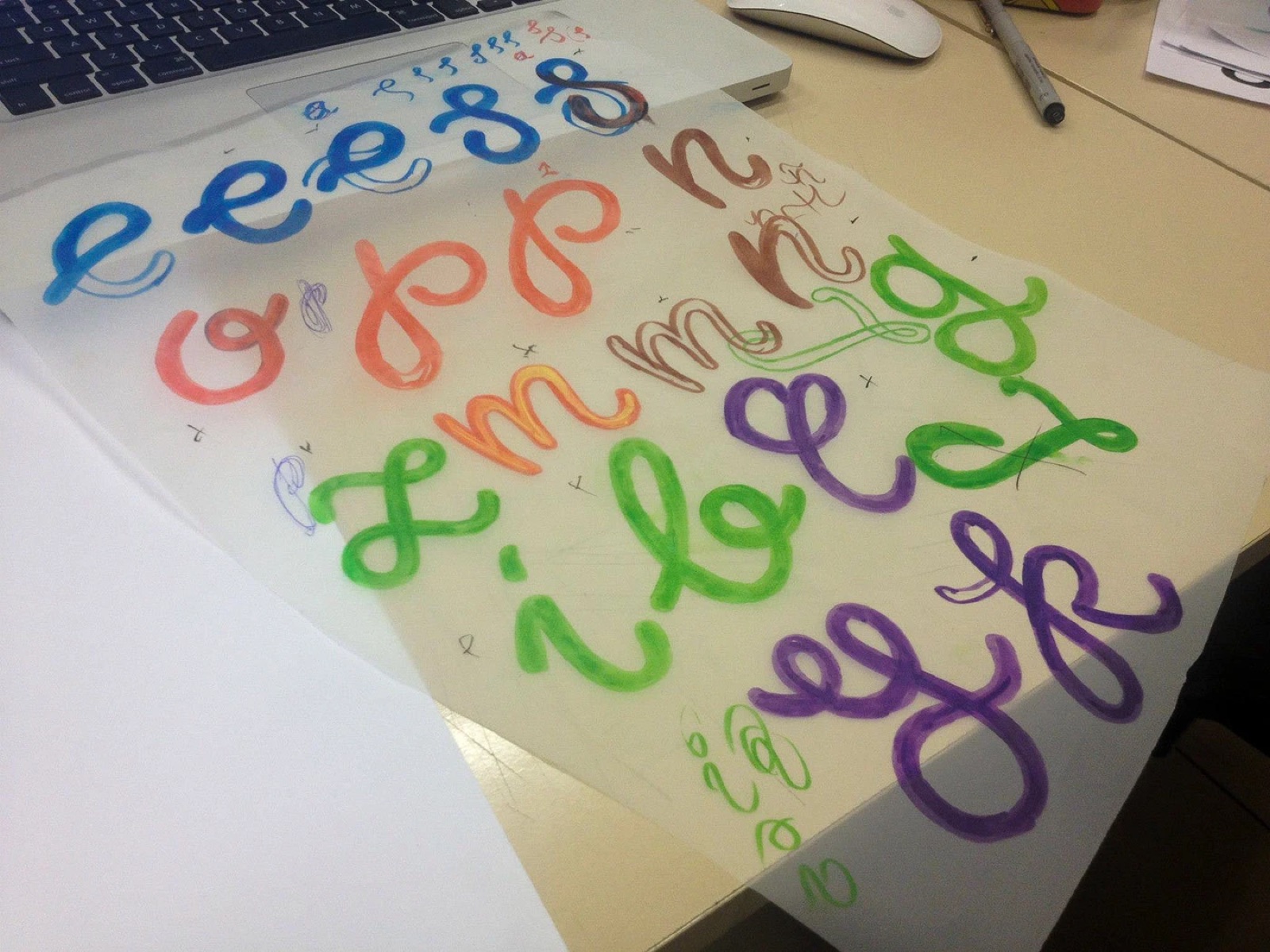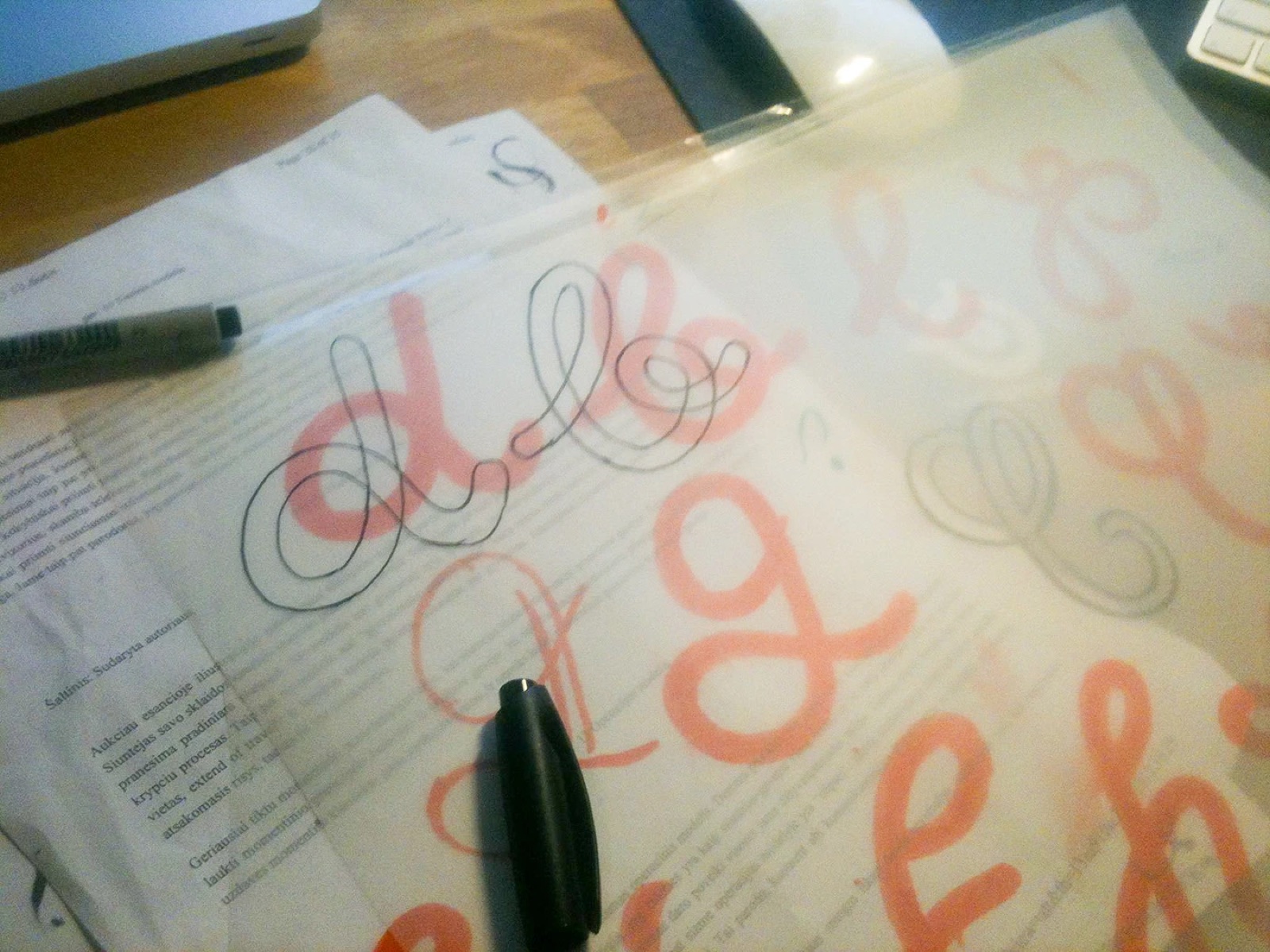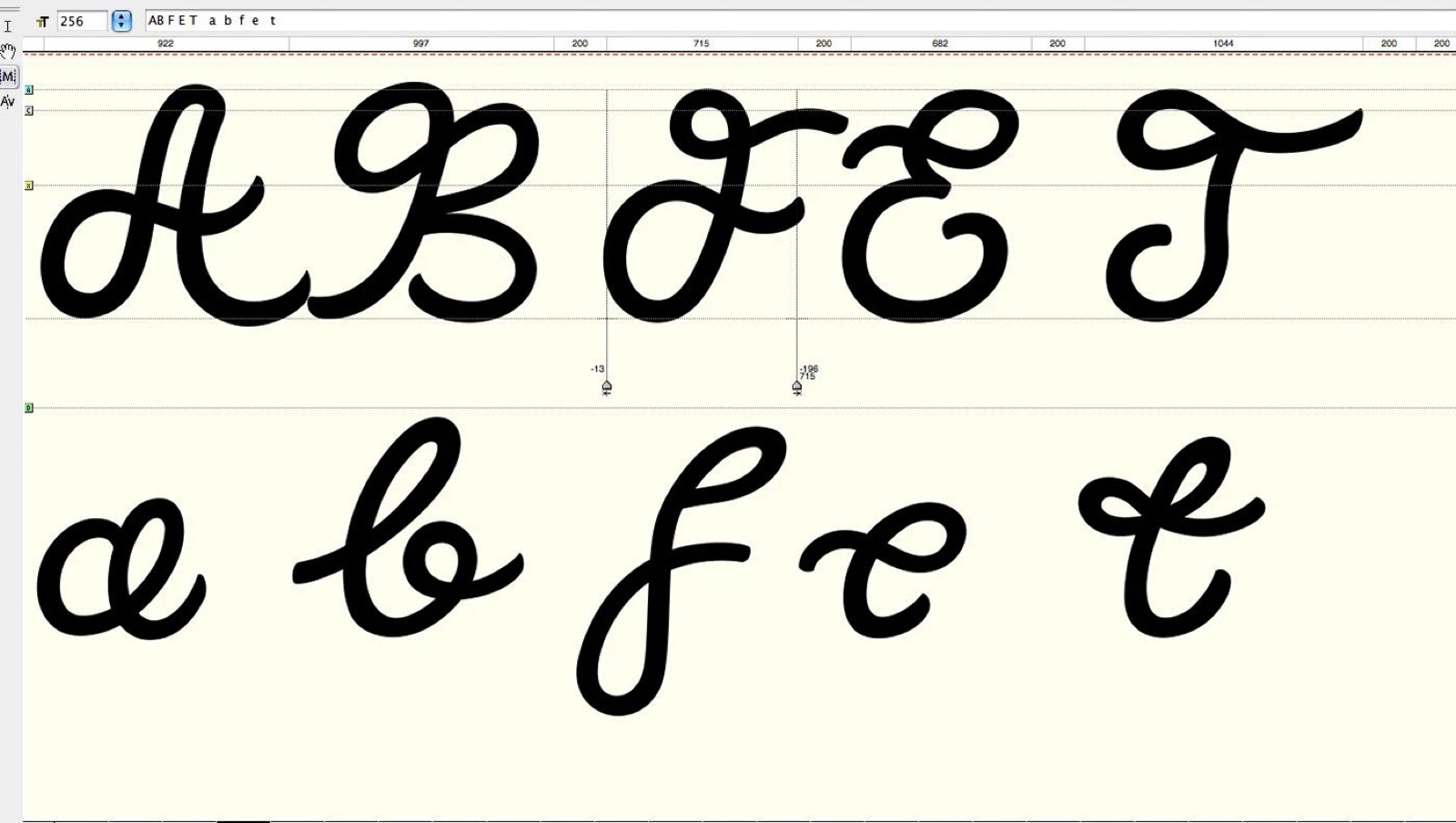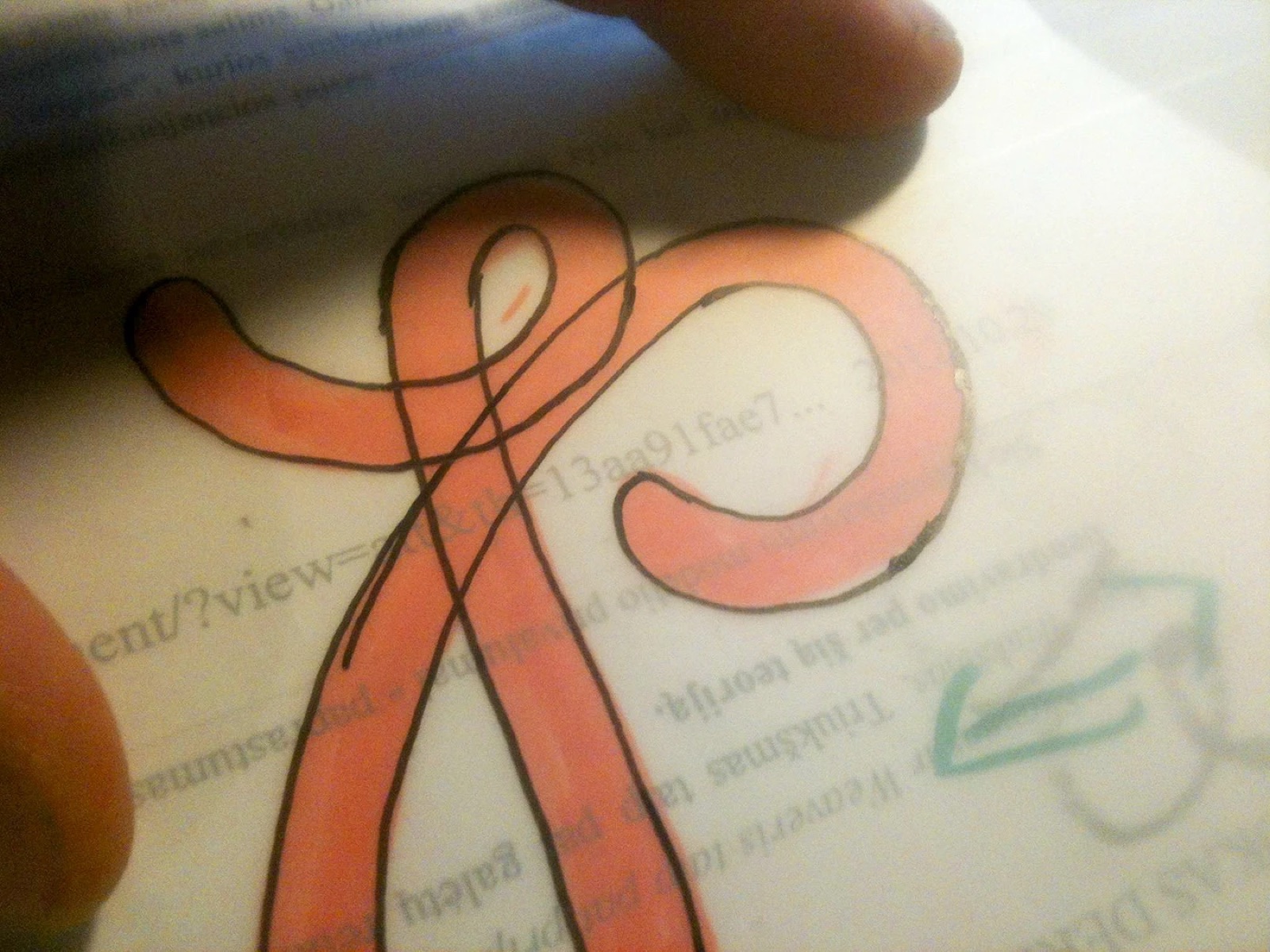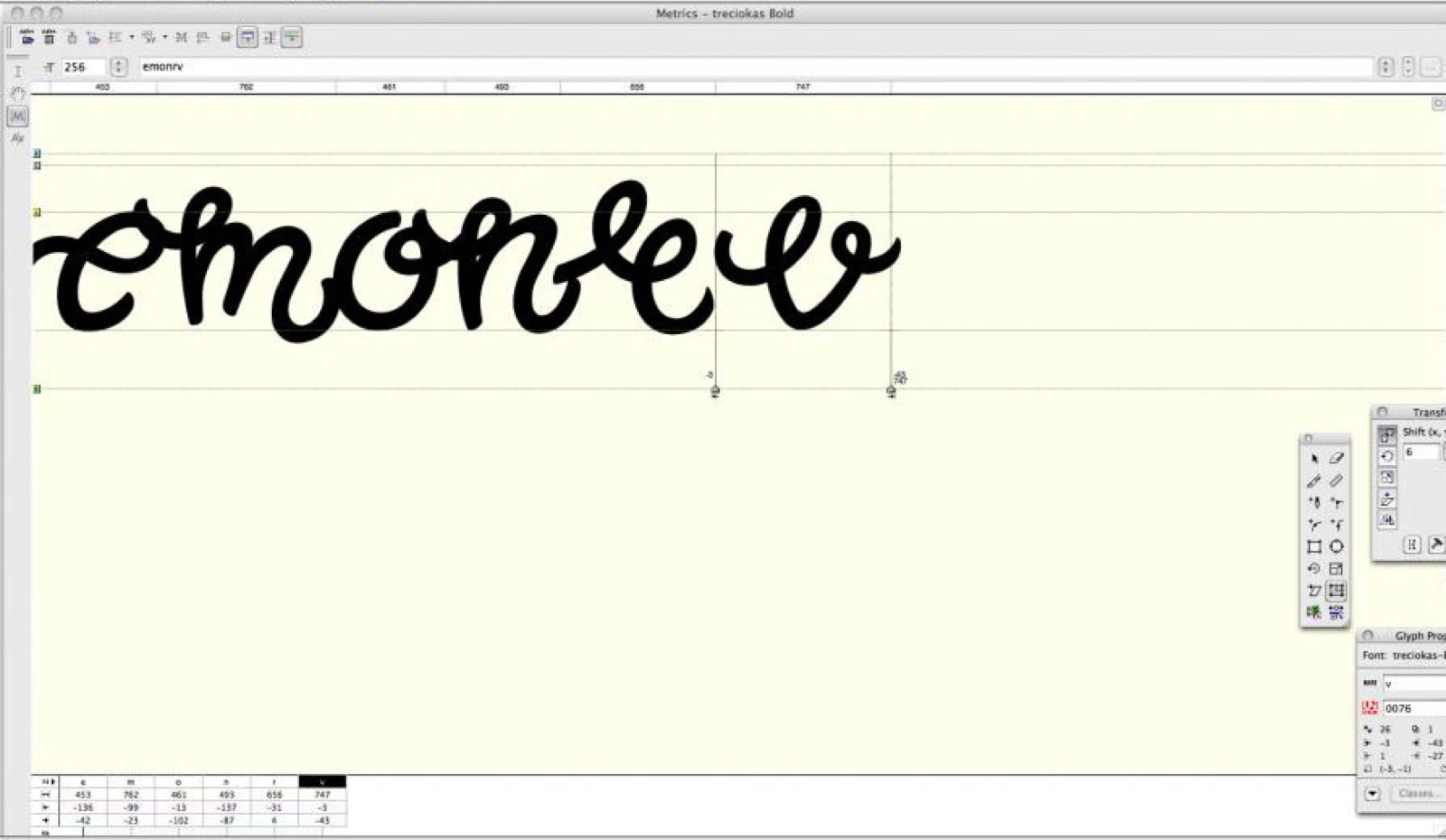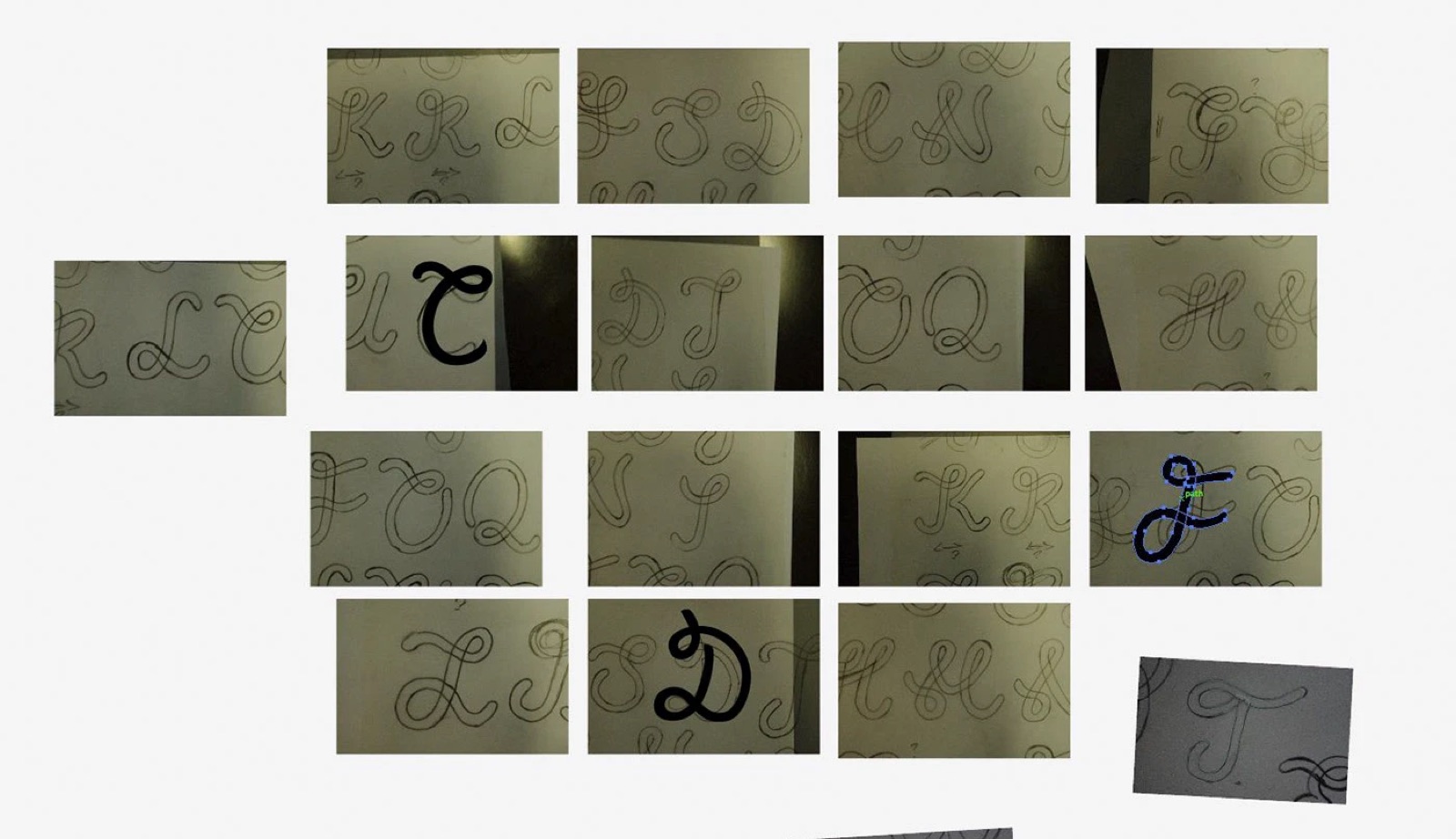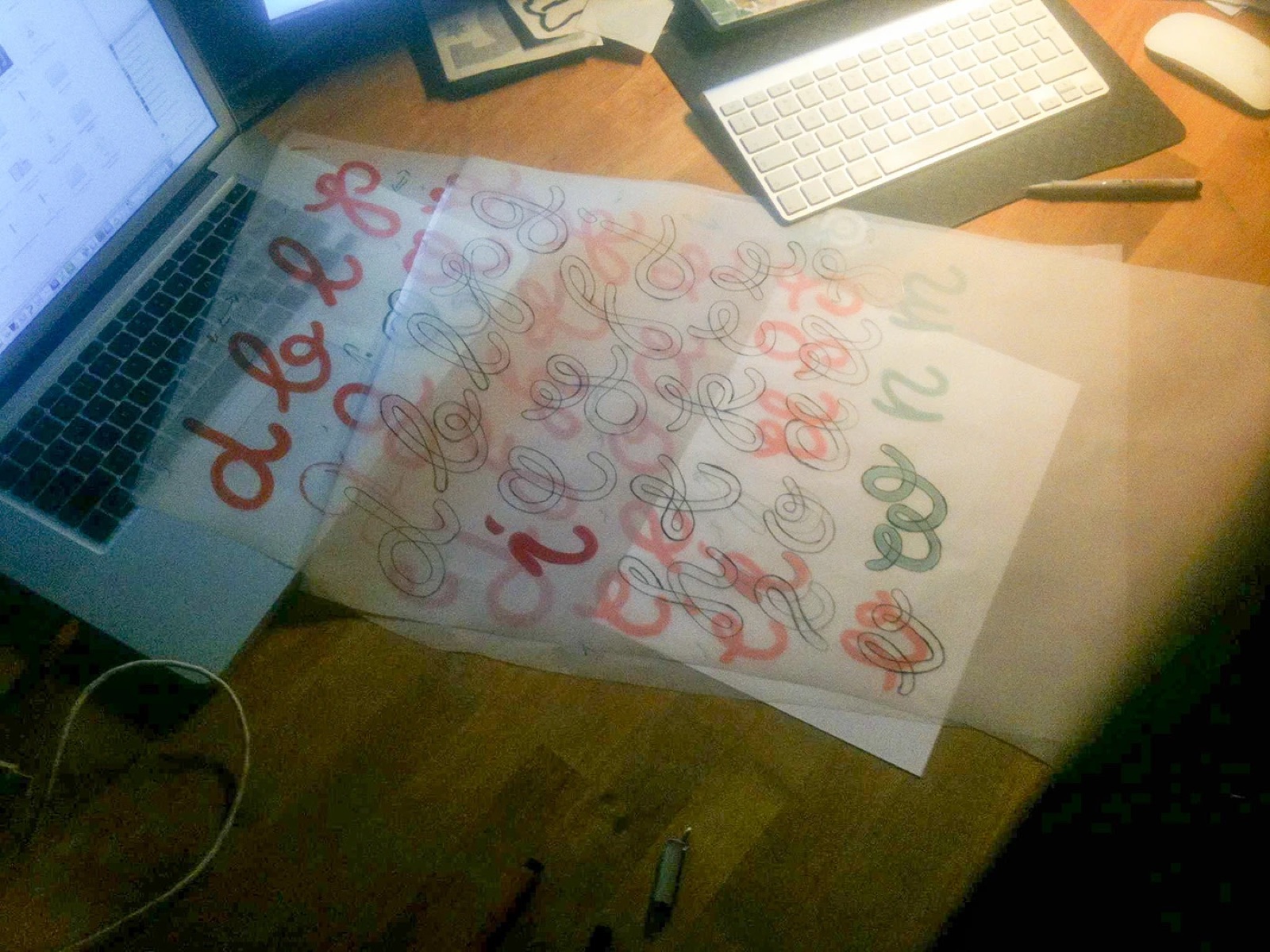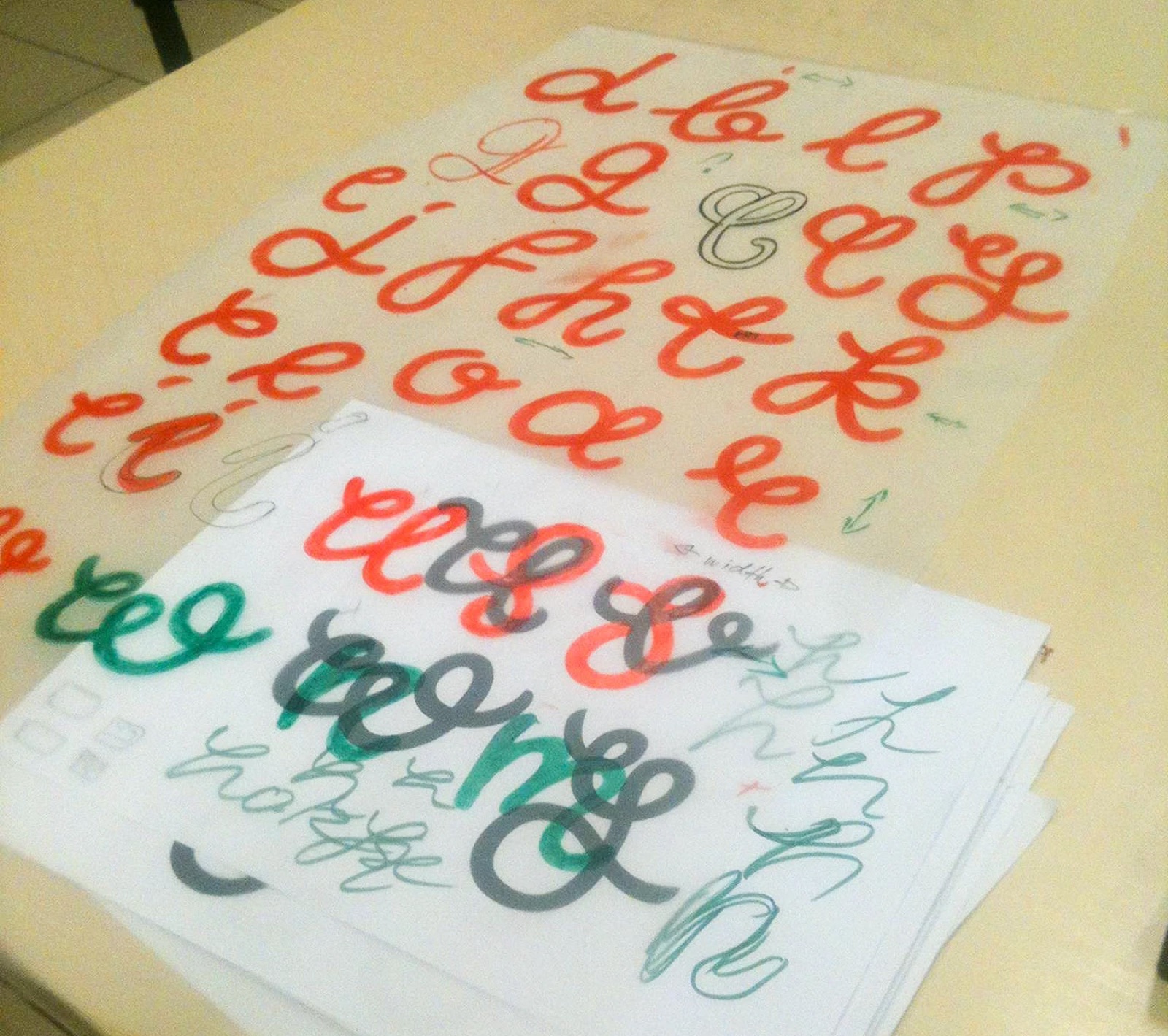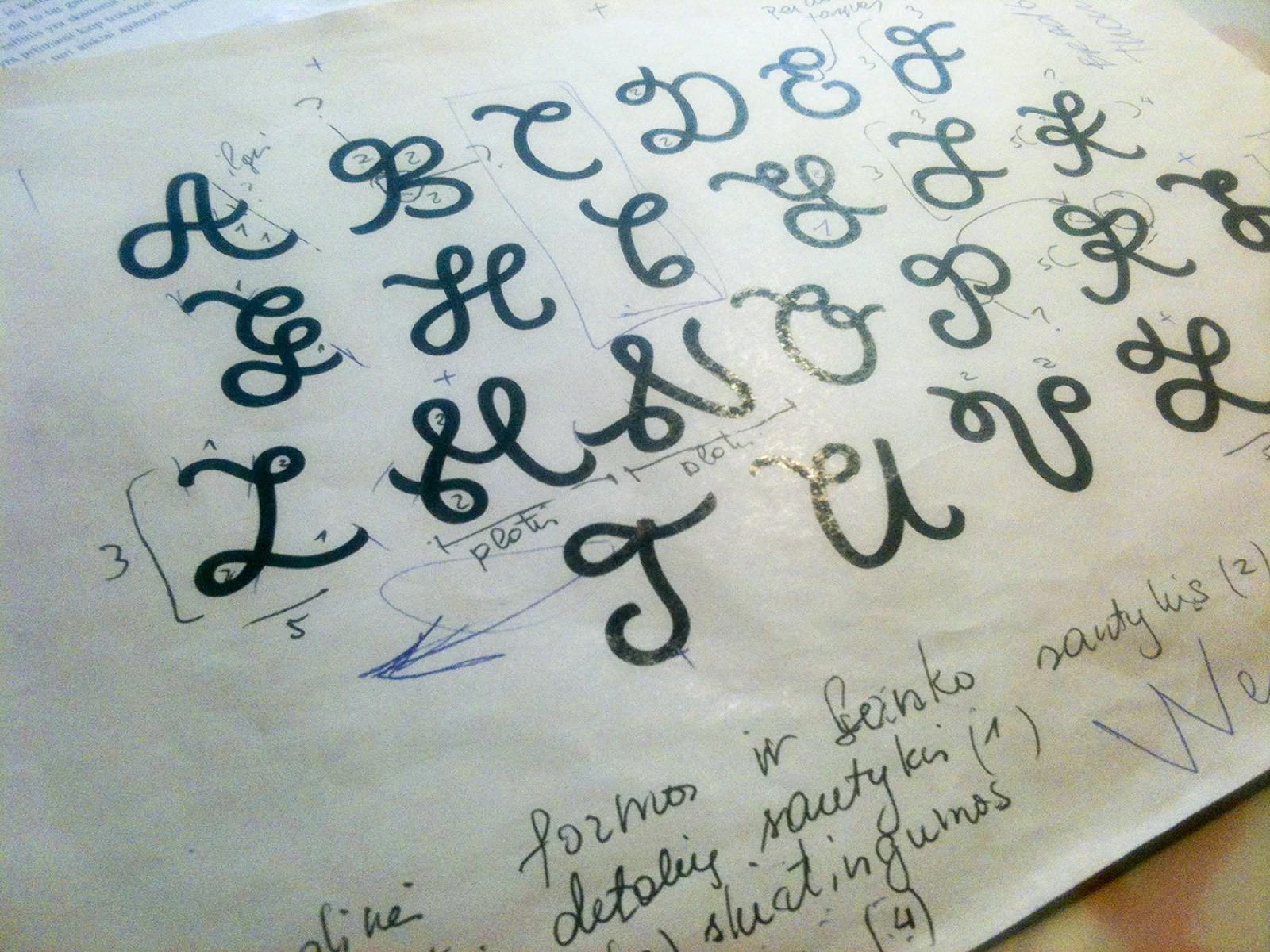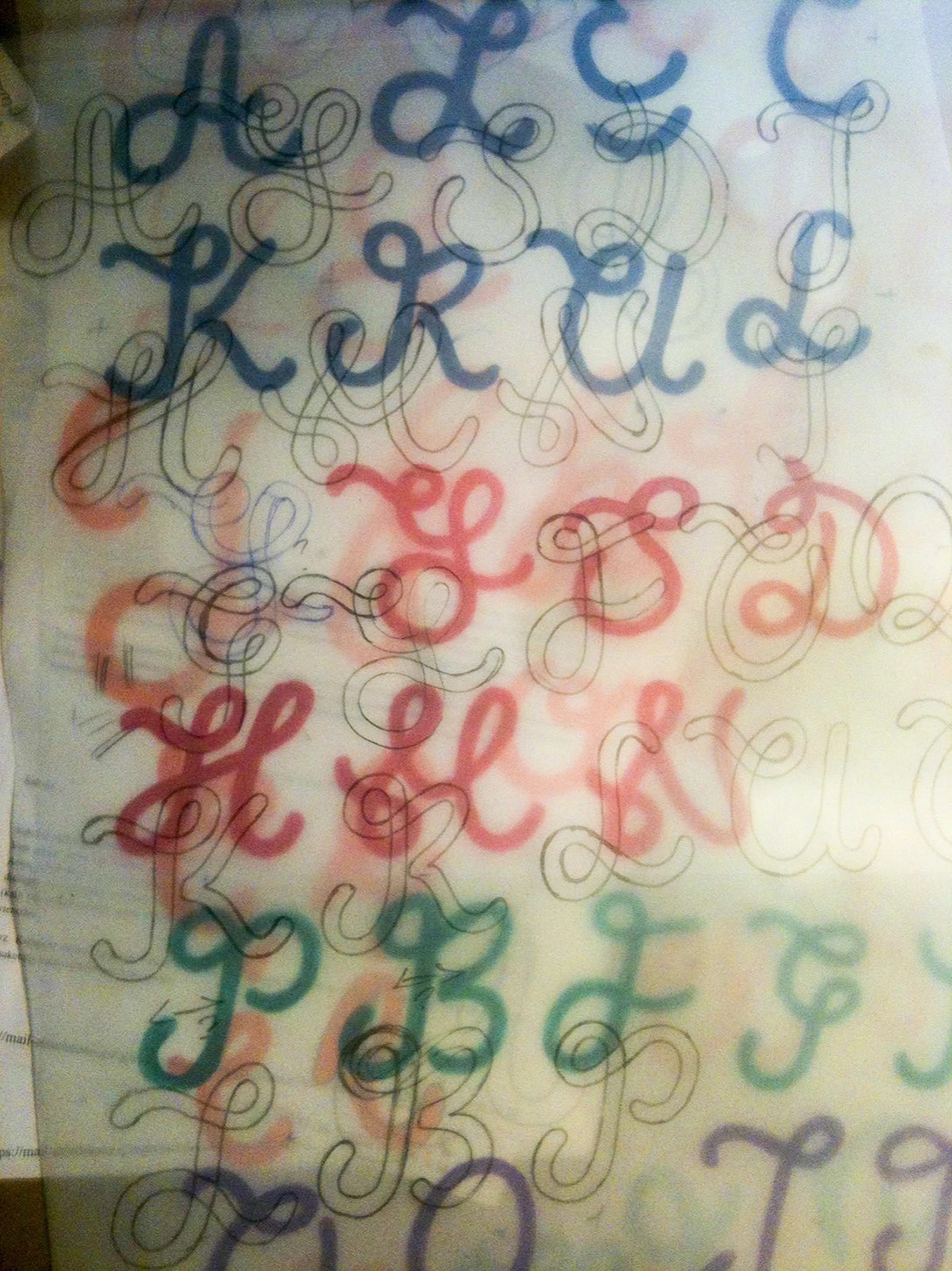
Treciokas typeface
I present you Trečiokas typeface. This two font family is based on written letters that were sketched by using paint markers and afterwards pollished digitally. Glyphs mostly are connected, leaving some separate, as a contrast to round and soft letter shapes. It includes extended latin character set. In 2013 I made the Aerofont project, which included custom music instruments that were made based on Trečiokas Normal letter shapes. The main idea was to connect music and typography, by making sound emitting letters. You can watch the project video here https://vimeo.com/92807196 Download here: https://www.myfonts.com/fonts/rokas-cicenas/treciokas/